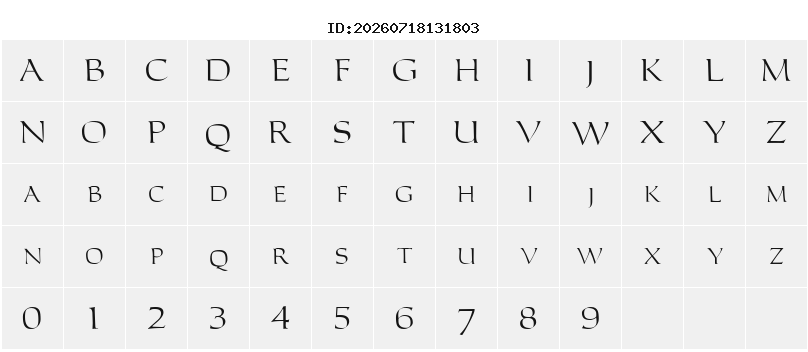
CarlosDB Preview
• Font Name: CarlosDB
• Font ID: Altsys Fontographer 4.0.3 CarlosDB Normal
• Full Font Name: CarlosDB Normal
• Version: Altsys Fontographer 4.0.3 8.9.1994
• PostScript Name: CarlosDBNormal
• Character Count: 204
About CarlosDB.ttf
CarlosDB.ttf is a modern, elegant sans-serif font designed for ultimate readability and visual harmony. Perfect for branding, headlines, web design, and print materials.